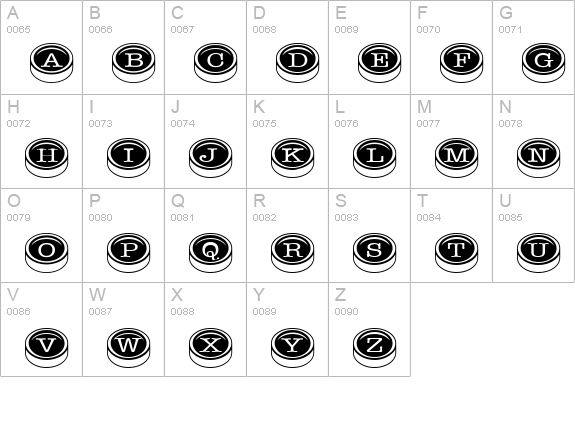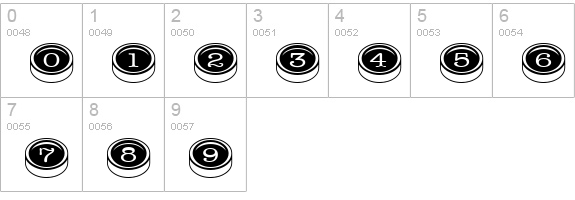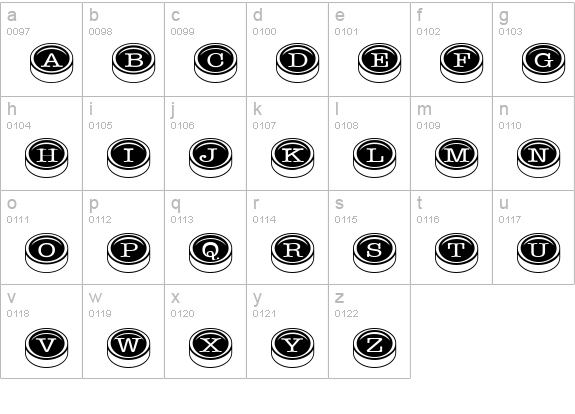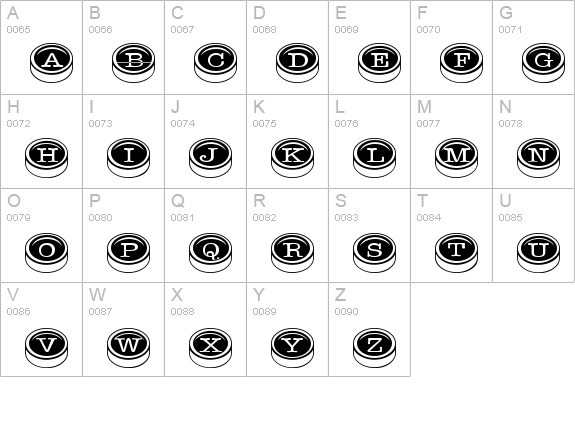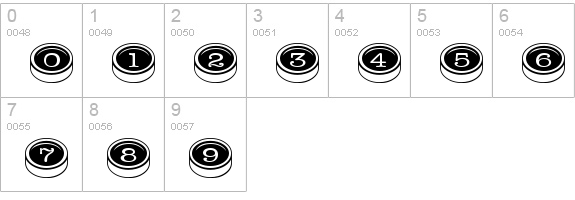
Introducing TypewriterKeys font, a beautifully crafted typeface that brings a touch of vintage charm to your designs. Inspired by the classic typewriter keys, this font captures the nostalgia and simplicity of a bygone era. With its clean lines and distinct character shapes, TypewriterKeys font is perfect for adding a unique and retro feel to your projects. Whether you're designing a poster, creating a logo, or adding a vintage touch to your website, this font will make your work stand out. Not only does TypewriterKeys font evoke a sense of nostalgia, but it also offers practicality. Its clear letterforms ensure legibility, making it suitable for a wide range of applications. From headlines to body text, this font delivers a balanced and harmonious aesthetic that will captivate your audience. And the best part? TypewriterKeys font is available for free! Yes, you heard that right. You can download this amazing font at FontsMarket.com without spending a dime. We believe that great design should be accessible to all, and that's why we've made TypewriterKeys font freely available for your creative projects. So why wait? Unleash your creativity and bring a touch of classic elegance to your designs with the TypewriterKeys font. Download it for free at FontsMarket.com today and start creating stunning visuals that will leave a lasting impression.